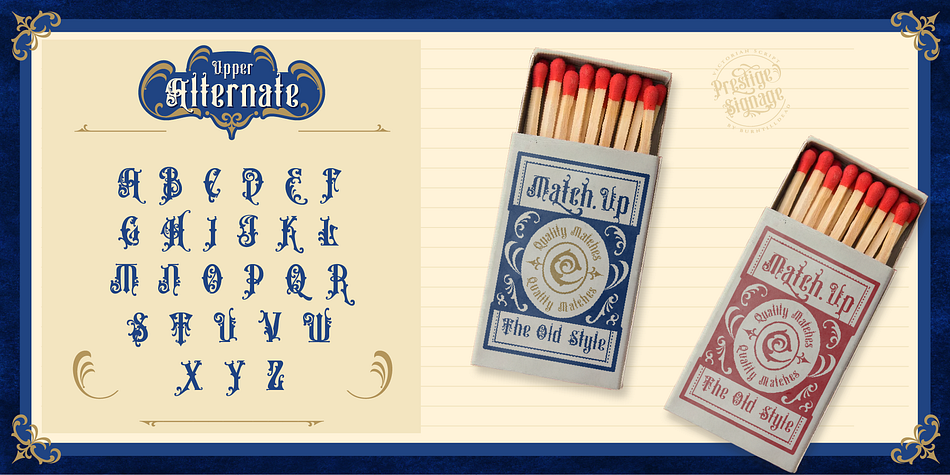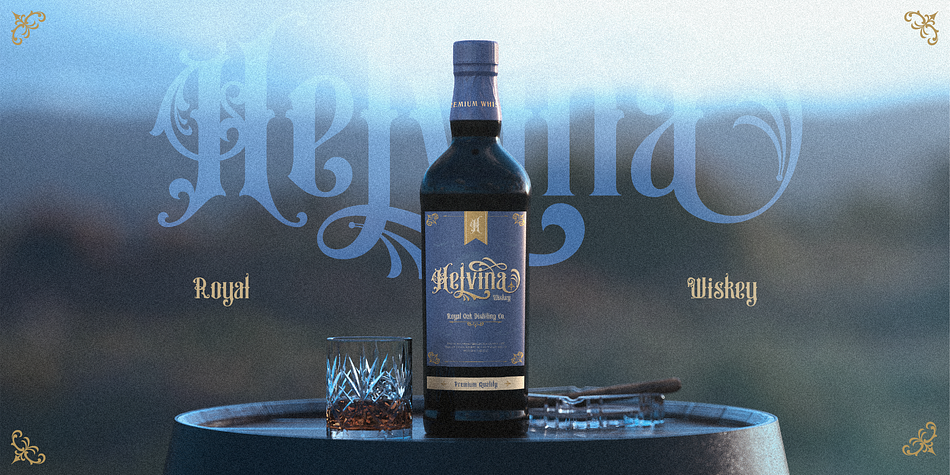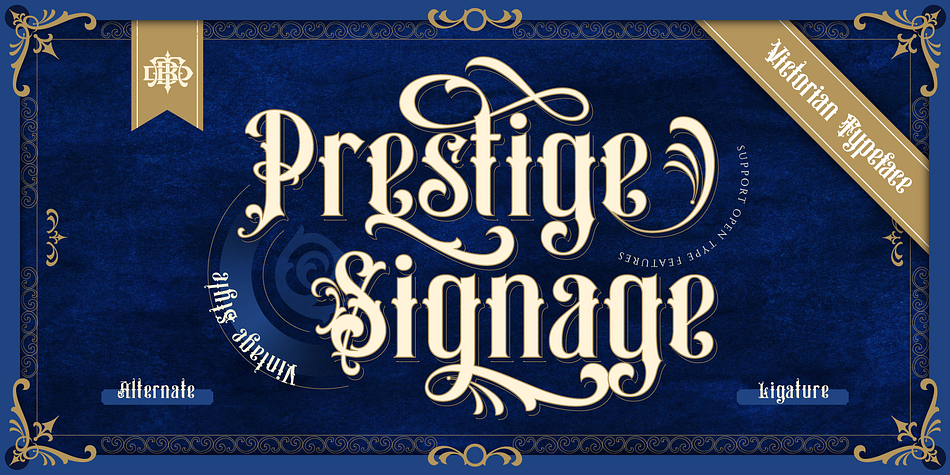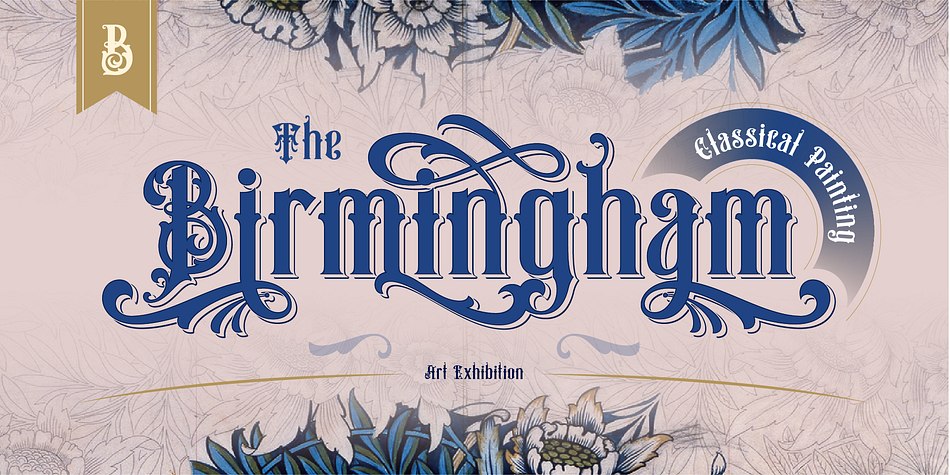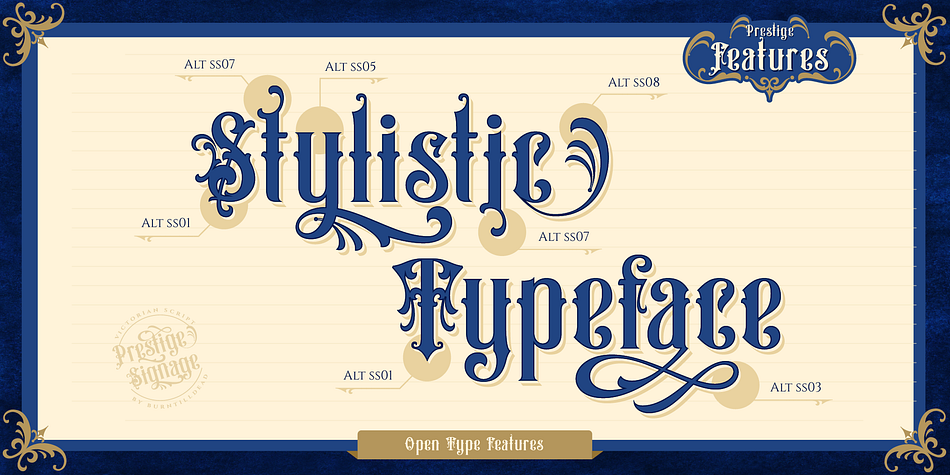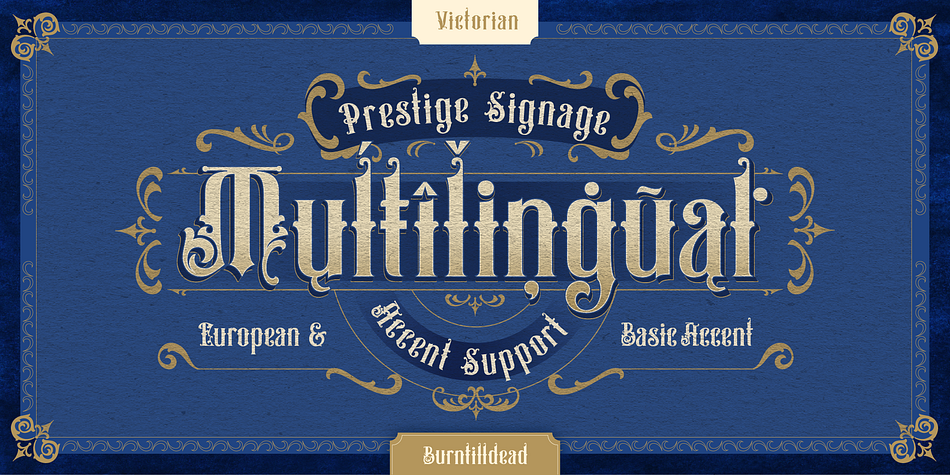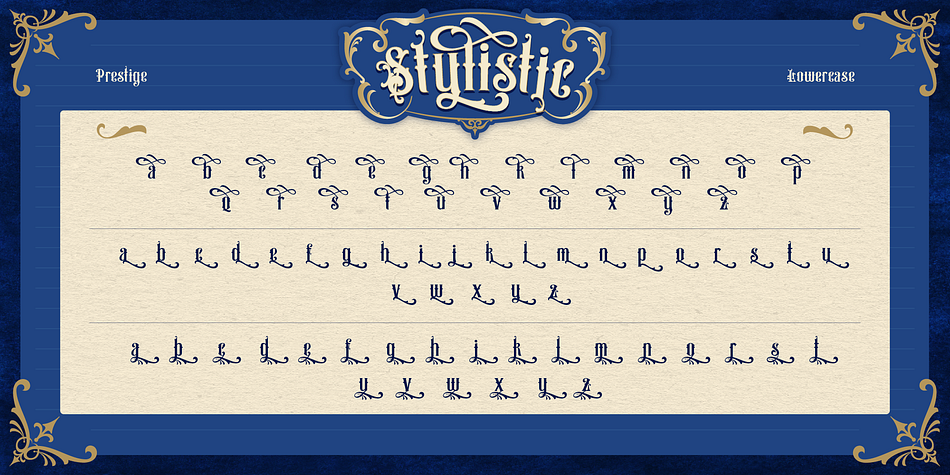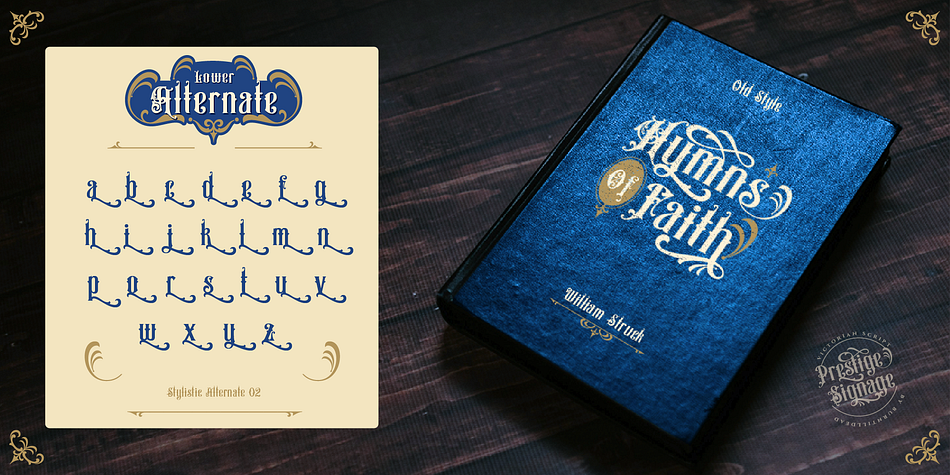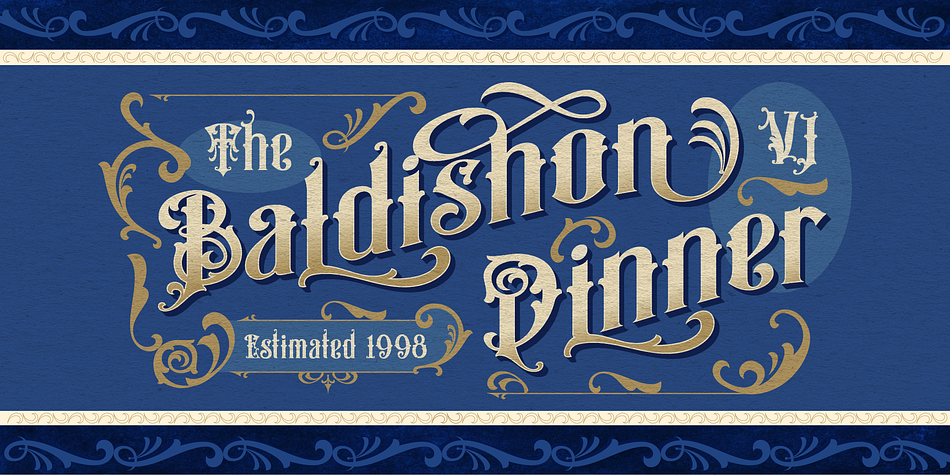
Prestige Signage
Designed by Eric Kurniawan, Prestige Signage is a display font family published by Burntilldead.
Introducing Prestige Signage, a stylish serif font inspired of Victorian era. This font exudes timeless elegance and prestige. Perfect choice for design project with classic and vintage theme concept like brand label, book cover, signage and many more. Designed to be both captivating and legible, this font includes eight alternates. Easily create your design in a prestige victorian era style.